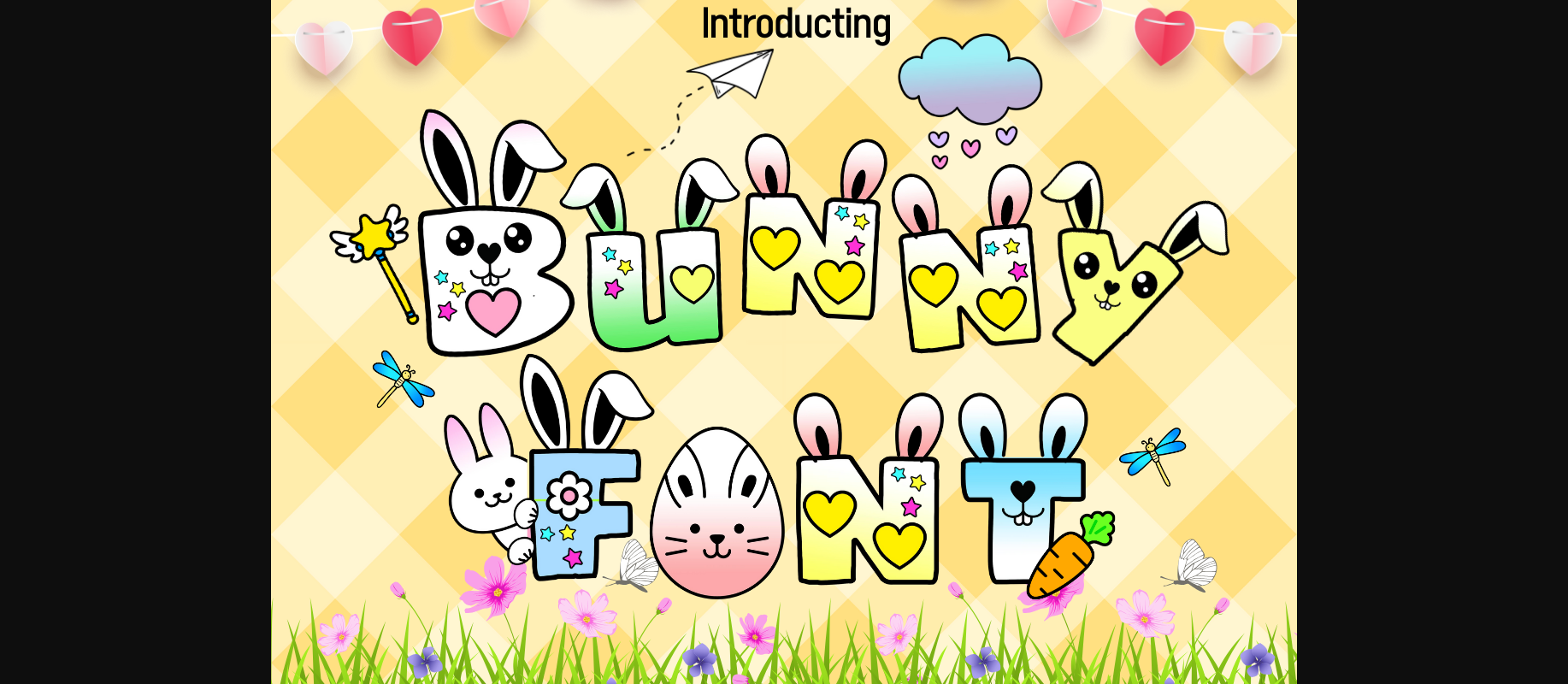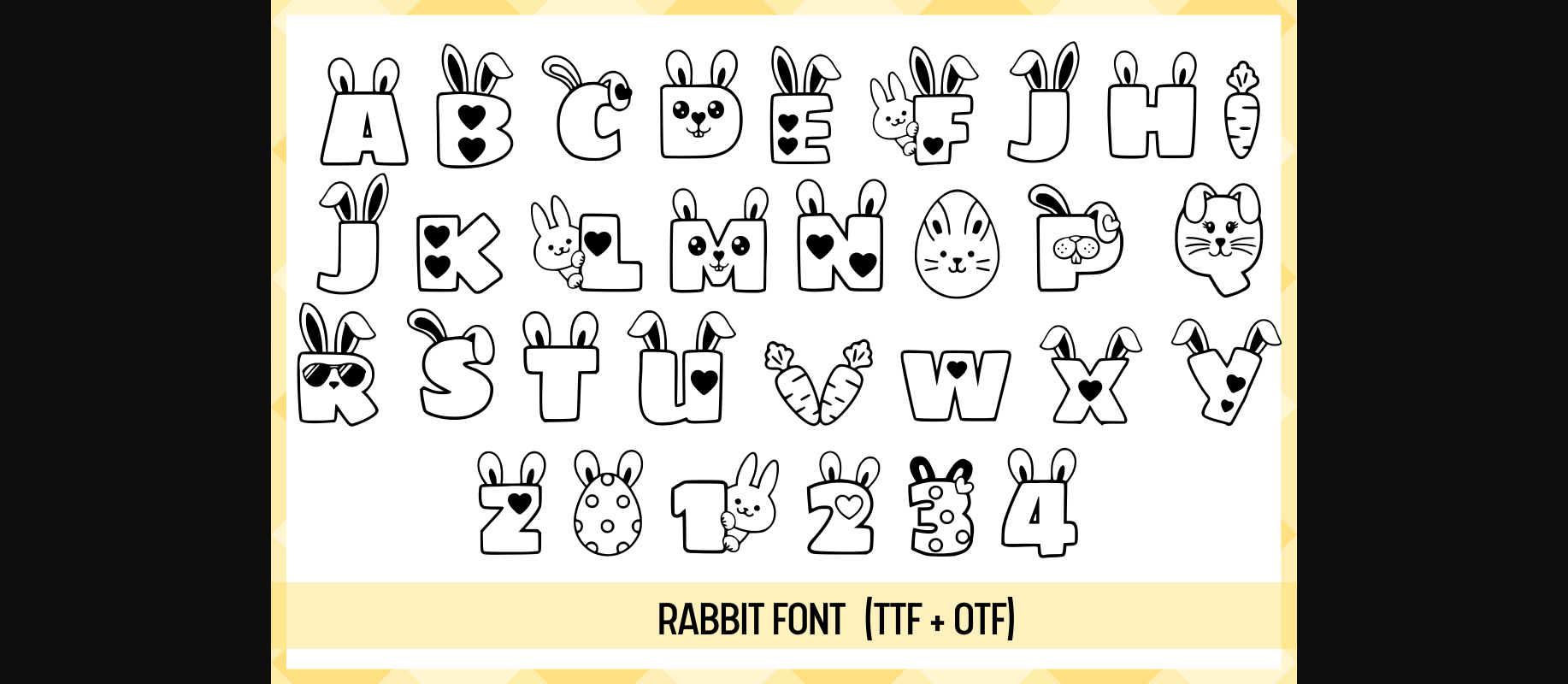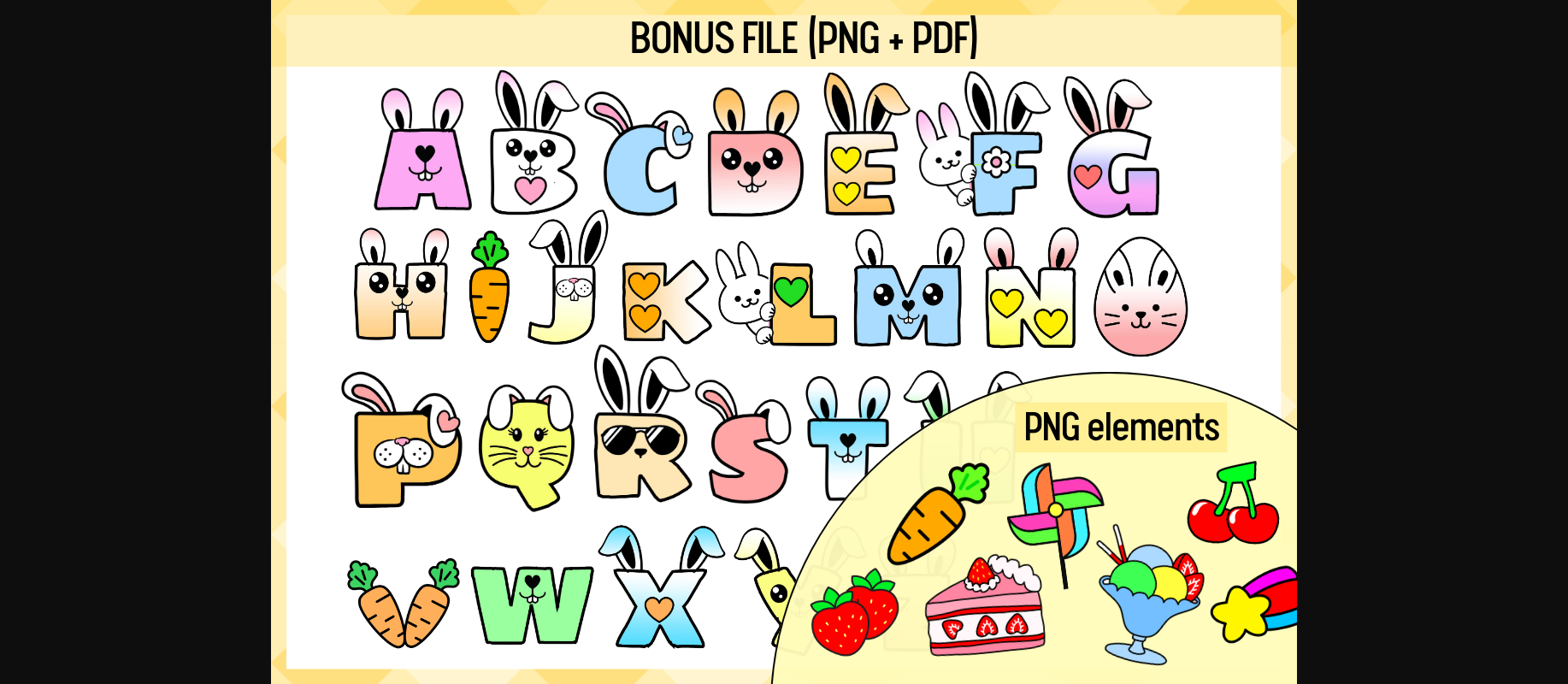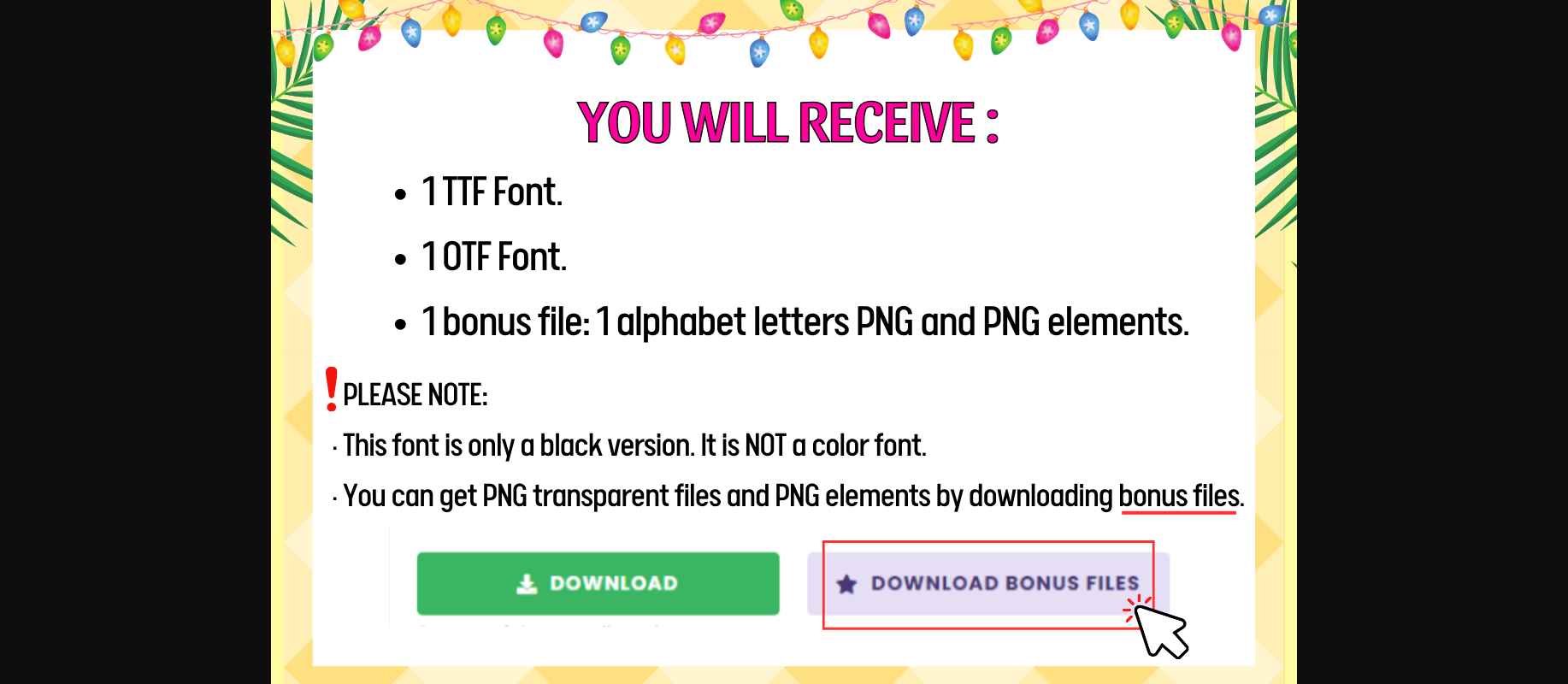
About Bunny Font
Bunny Font is a playful decorative typeface inspired by Easter, featuring letters adorned with adorable bunnies and bunny ears. Perfect for adding a touch of whimsy to your designs, this font brings a festive charm to any project. Ideal for Easter cards, posters, and decorations, Bunny Font adds a delightful twist to your typography with its cute bunny-themed elements.